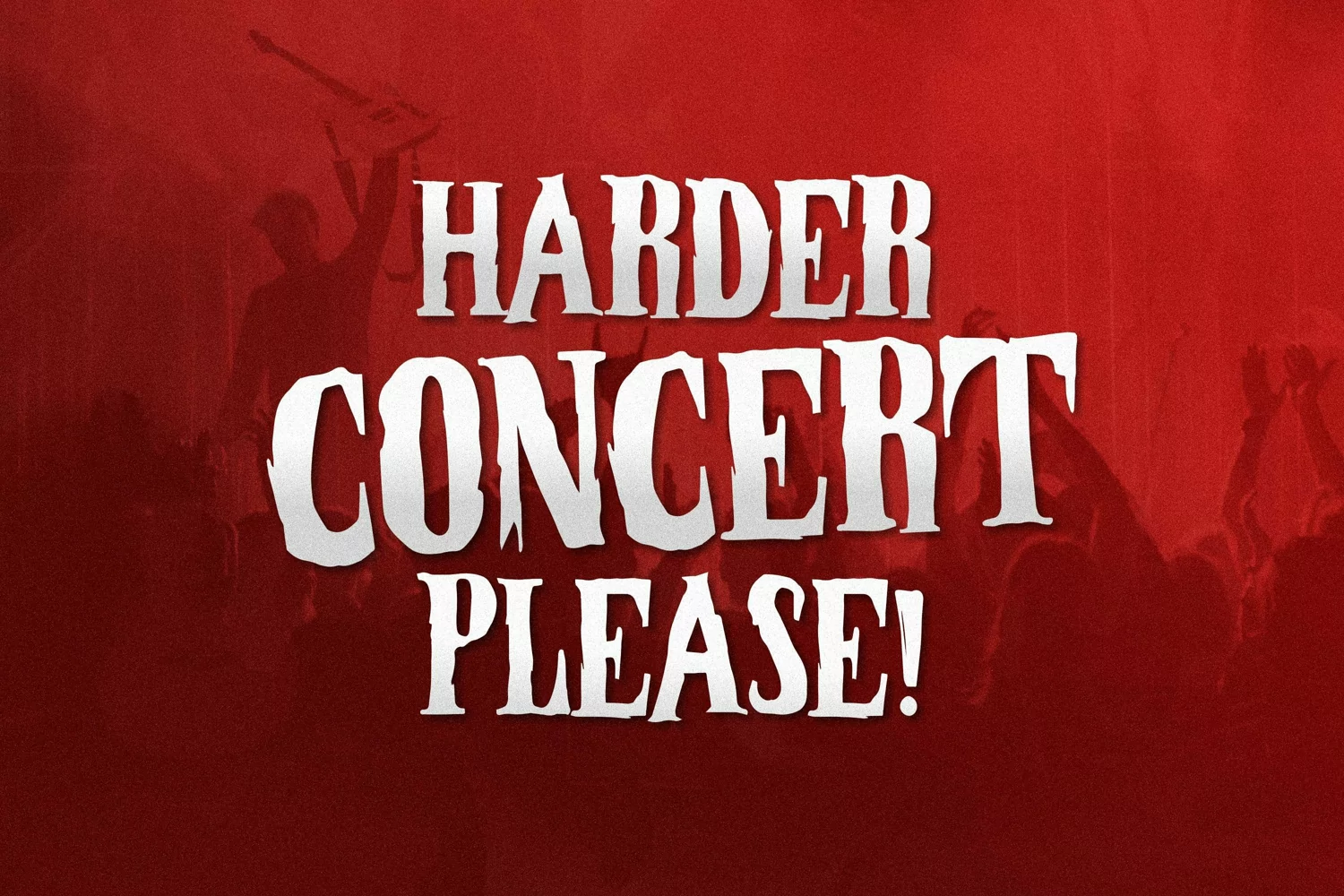
Introducing " Rocky Boys - Death Metal Font "
This fonts is ideal for Metal Bands, Musical Themes, Concert and More related Events. You can create tons of great project using this font.